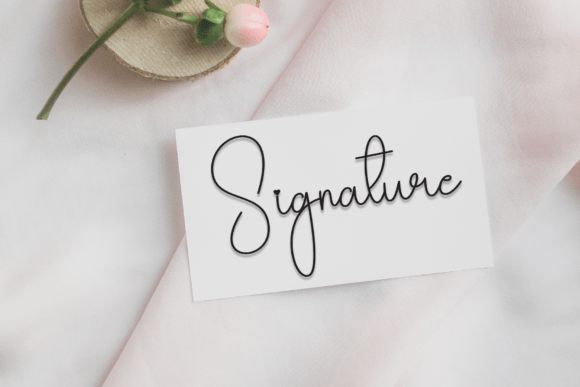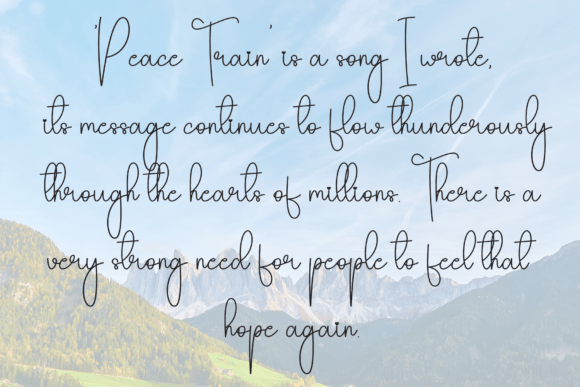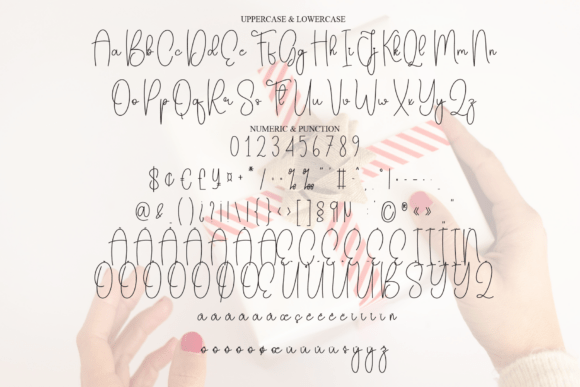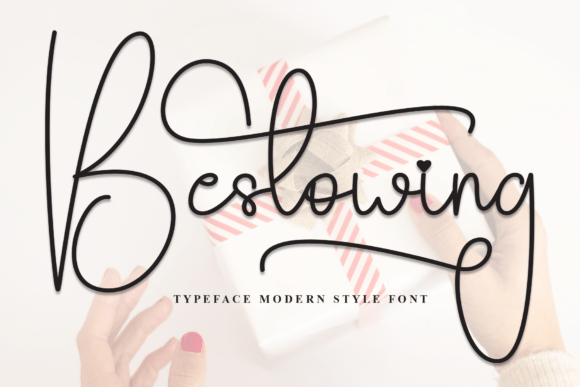
The Designer’s Delight: Bestowing Font
Have you ever been in the middle of a design project, and suddenly, you’re stuck on finding the perfect font? I recall a recent experience where I was working on a logo design for a boutique brand, and I just couldn’t seem to find a font that captured the essence of their elegant yet playful vibe. That’s when I stumbled upon the Bestowing font, and it was love at first sight! 💕
A Personal Review: What I Love About Bestowing
Bestowing is a stylish handwritten script font that has quickly become a favorite in my design toolkit. Here’s what I love about it:
- ✨ Modern elegance with a playful touch: Bestowing strikes the perfect balance between sophistication and whimsy, making it ideal for a wide range of design projects.
- ✅ Fluid strokes and charming curves: The font’s smooth, flowing lines add a personal feel to any design, making it perfect for logos, packaging, and invitations.
- 💫 Warmth and creativity: Bestowing brings a unique blend of warmth and creativity to every project, making it perfect for designers looking to add a personal touch.
While Bestowing is an amazing font, there are a few quirks to be aware of:
- ⚠️ Limited use in body text: Due to its script nature, Bestowing is best suited for headlines, titles, and short paragraphs. It may not be the best choice for lengthy body text.
- 🤔 Some characters may require manual kerning: While the font is generally well-spaced, some character combinations may require manual kerning to achieve optimal results.
- Experiment with OpenType features, such as stylistic alternates and glyphs, to add more personality to your text.
- Explore OpenType features, such as swashes and ligatures, to add more flair to your text.
The Story Behind Bestowing
Bestowing was designed by a talented type designer who wanted to create a font that would bring a touch of elegance and playfulness to any design project. Inspired by the flowing lines of handwritten scripts, Bestowing was crafted to be both modern and timeless. According to the designer, “Bestowing is all about capturing the essence of handwritten elegance, while still being approachable and fun.”
Q: What type of projects is Bestowing best suited for?
A: Bestowing is ideal for logos, packaging, invitations, and any design project that requires a touch of elegance and playfulness.
Q: Can I use Bestowing for body text?
A: While Bestowing is a beautiful font, it’s best suited for headlines, titles, and short paragraphs. For lengthy body text, you may want to consider a more traditional serif or sans-serif font.
Q: Does Bestowing support OpenType features?
A: Yes, Bestowing supports OpenType features, including stylistic alternates, glyphs, and ligatures. Experiment with these features to add more personality to your text.